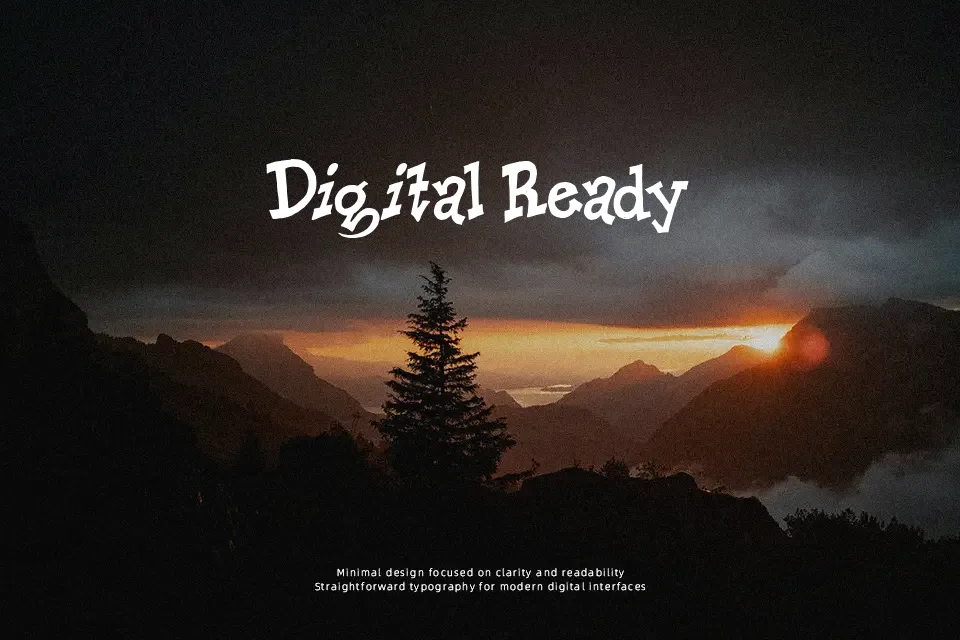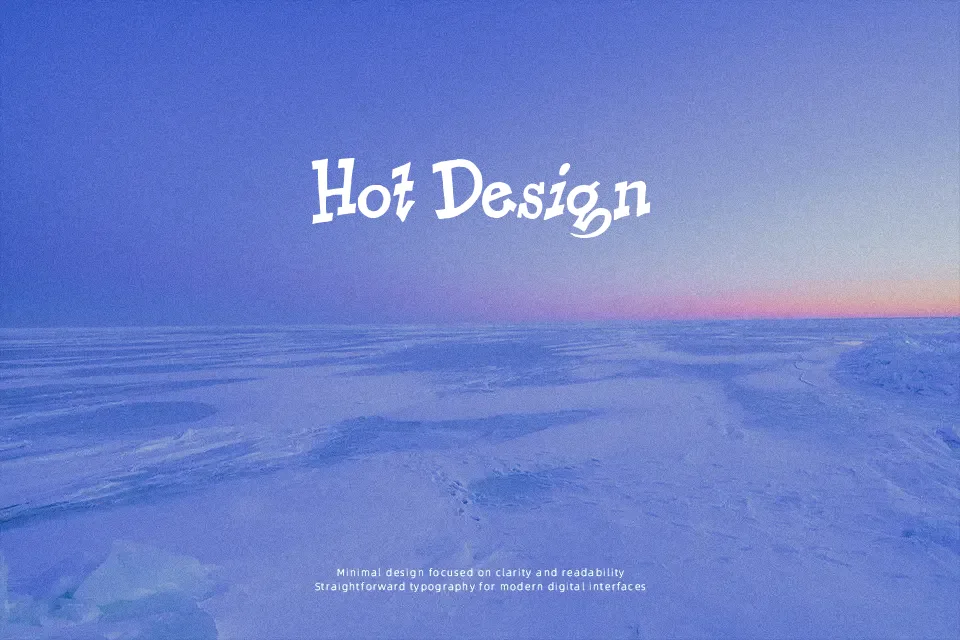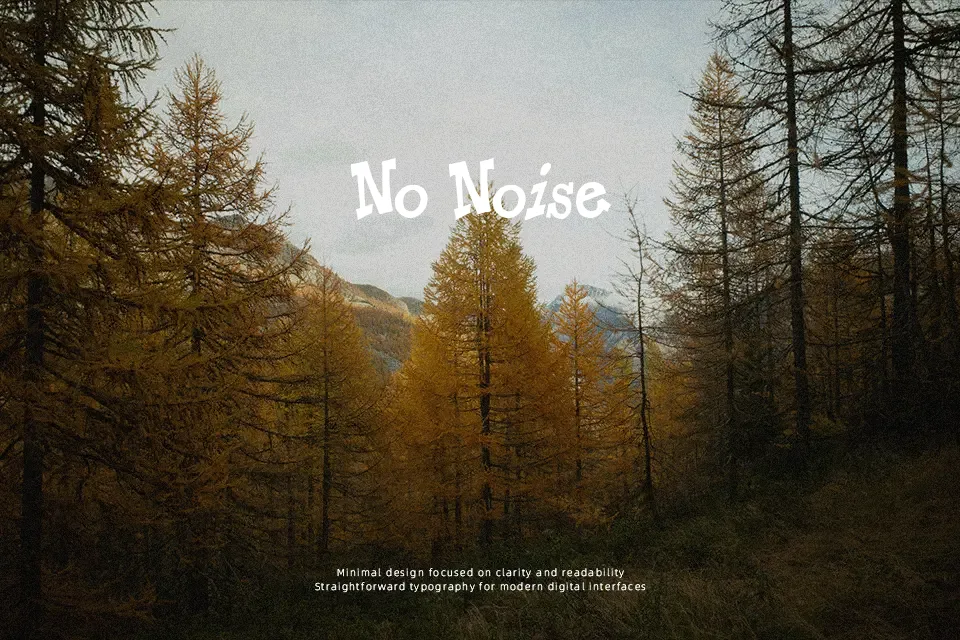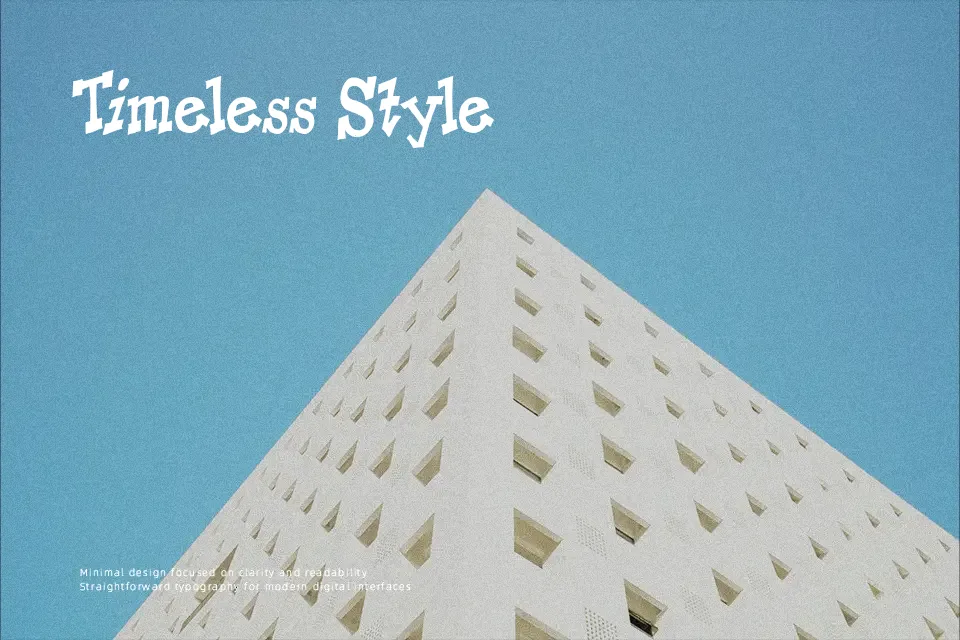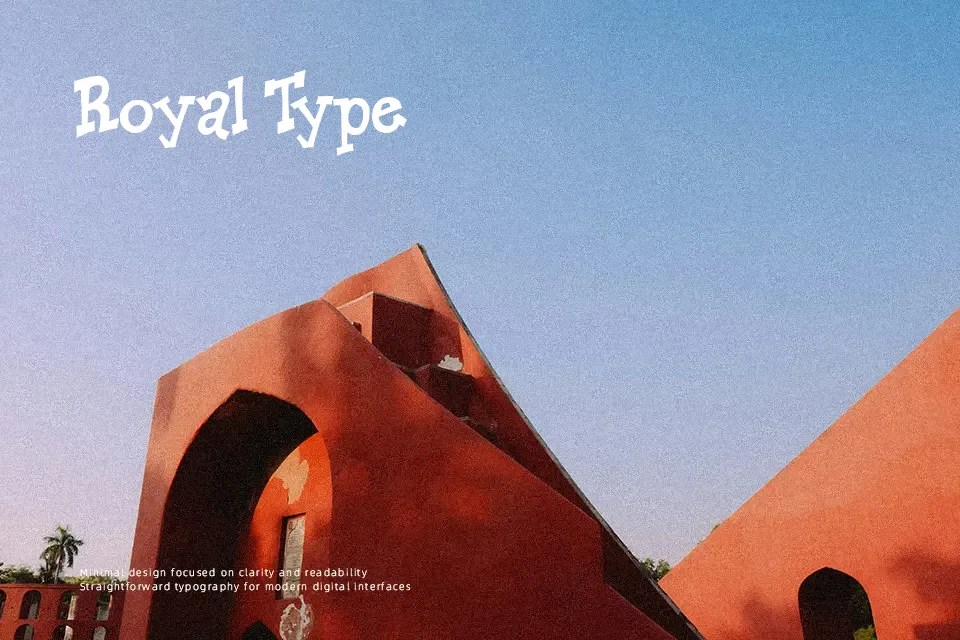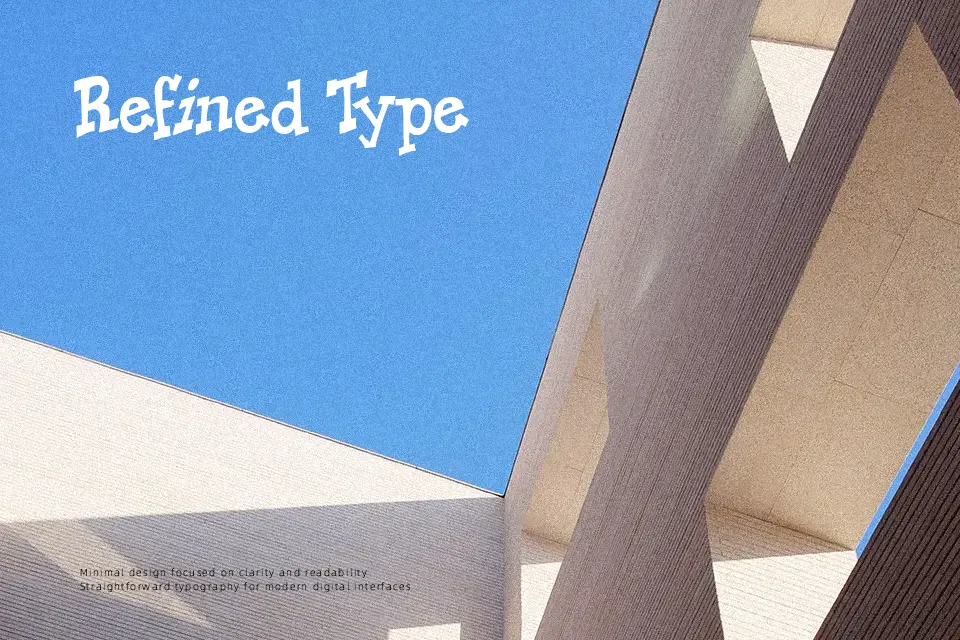
Knick O Teen Font
Designed by Peter Stanton
Jagged strokes, uneven curves, and slightly warped proportions give Knick O Teen a hand-drawn, spooky personality. The letter spacing feels intentionally inconsistent, enhancing its chaotic Halloween vibe while keeping characters recognizable at larger sizes. It leans heavily into decorative styling rather than clarity, making it more expressive than practical. This font works best when used in short bursts—like event titles or themed packaging—where its quirky horror tone can stand out. However, it quickly becomes tiring to read in longer text, and its irregular forms can reduce legibility at smaller sizes or in dense layouts.
Halloween party invitations
spooky poster headlines
seasonal social media graphics
professional corporate materials
small-size body content
Perfect for headline, holiday, and poster, with a creative and decorative style.